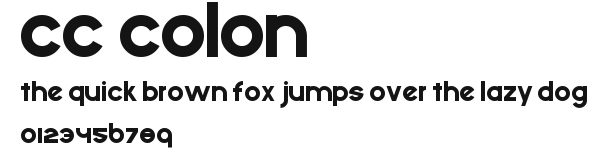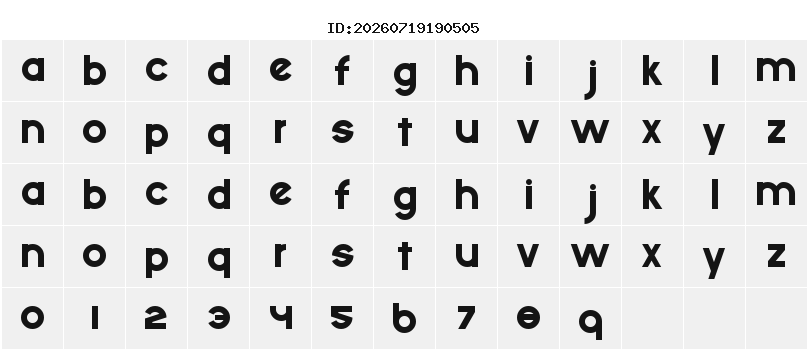
• Font Name: CC Colon
• Full Font Name: CC Colon
About CC Colon.ttf
CC Colon.ttf is a modern, elegant sans-serif font designed for ultimate readability and visual harmony. Perfect for branding, headlines, web design, and print materials.